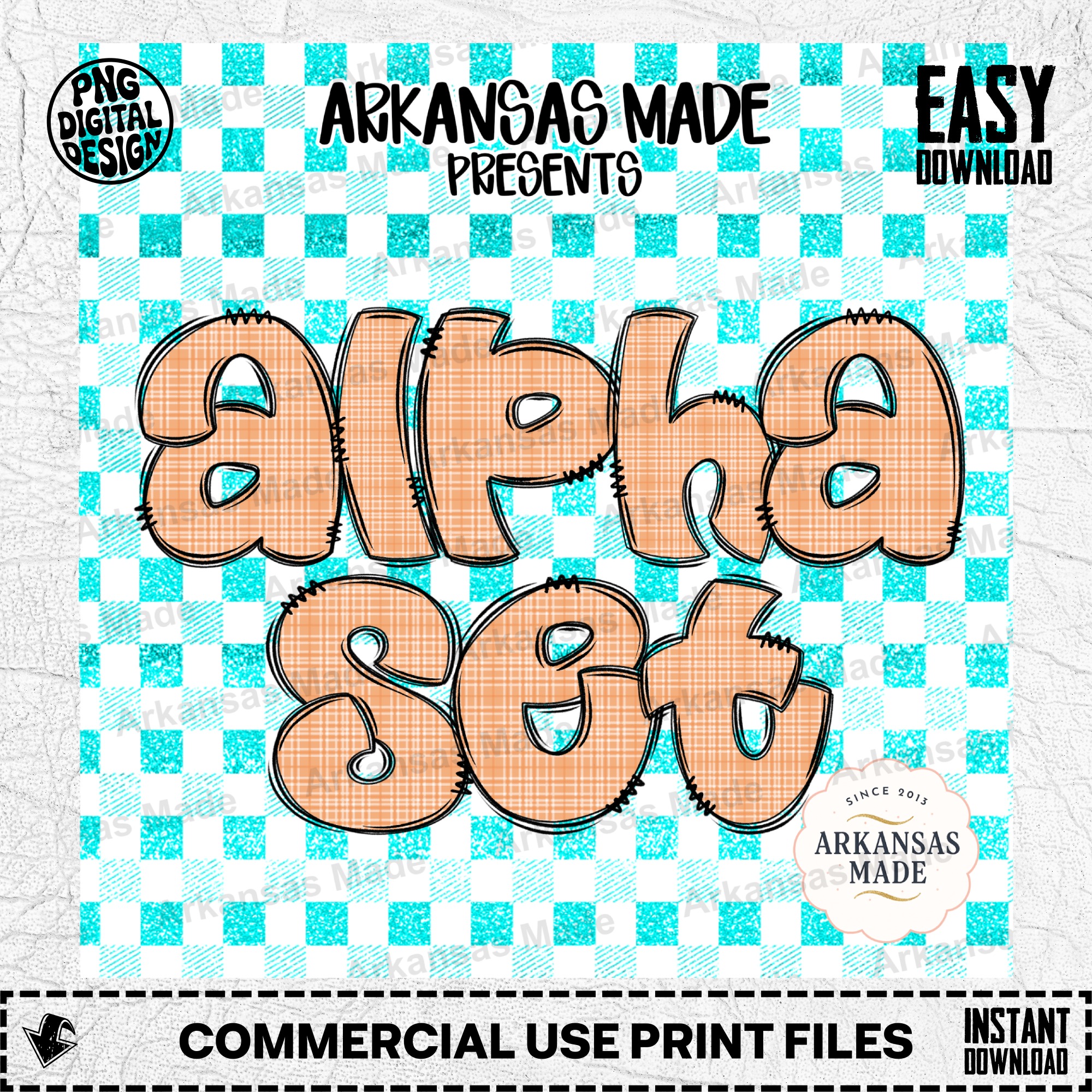
Rustic Plaid Alpha Set PNG Letters, Faux Stitch Alphabet Clip Art, Farmhouse Font Instant Download, Crafty Digital Design for Sublimation
Elevate your creations with our Rustic Plaid Alpha Set PNG Letters, perfect for sublimation, digital crafting, and personalized designs. This charming faux stitch alphabet features a cozy peach plaid print, ideal for adding a touch of farmhouse or country style to your projects. Crafters, DIY enthusiasts, and small business owners will adore these instant download digital files. Unleash your creativity for custom t-shirts, mugs, signs, and more, making every design uniquely yours or a thoughtful gift for fellow creators.